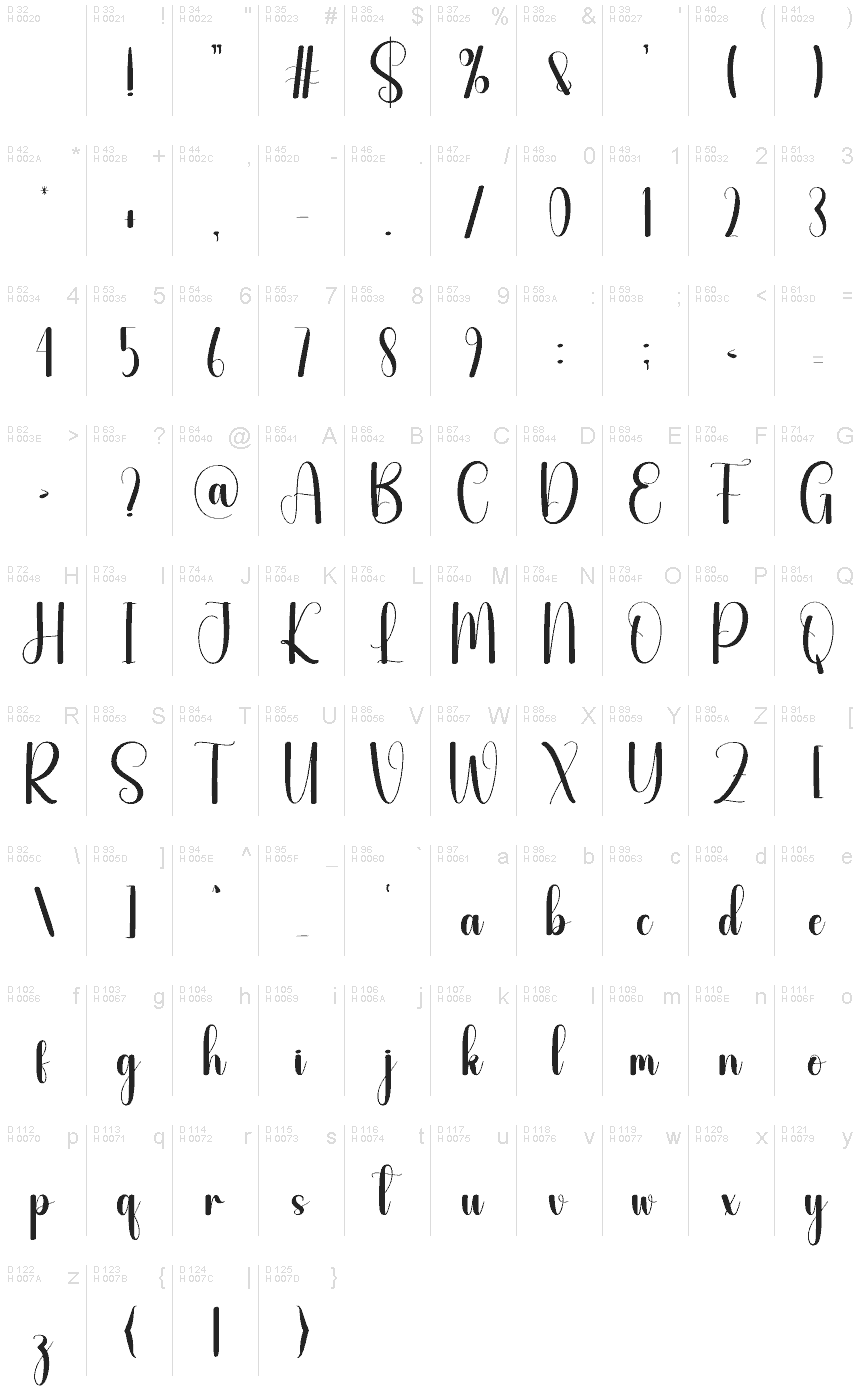
Seamstress
Seamstress font by Andi Moz is an elegant free calligraphy font with a flowing ornamental style. The expressive flair and sophisticated mood are the defining characteristics of this classic script typeface that creates gorgeous curves formed in copperplate calligraphy books.